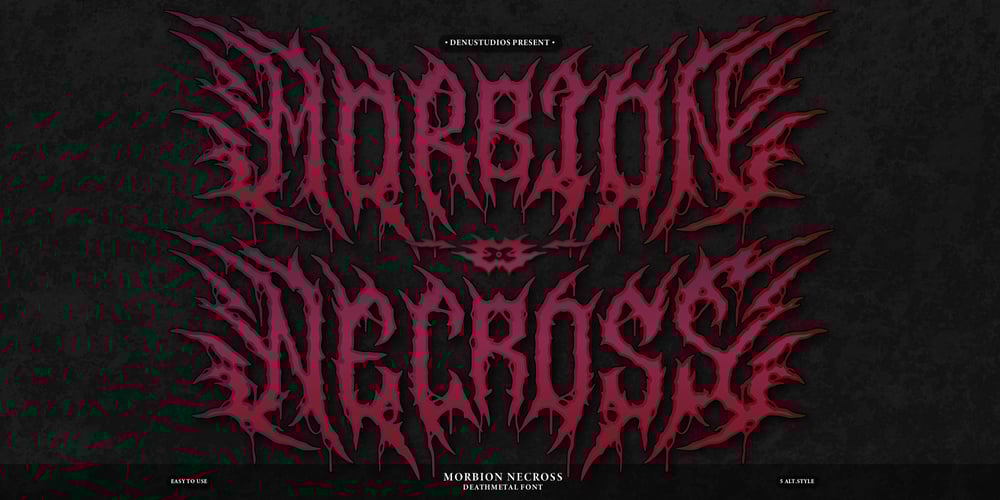
Morbion Necross
Morbion Necross font
Morbion Necross Font Family was designed by Dede Nugraha and published by Denustudio. Morbion Necross contains 1 styles and family package options. Morbion Necross | Death Metal Font, from Denustudios, suitable for any projects such as: logos, branding projects, homeware designs, product packaging, mugs, quotes, posters, shopping bags, t-shirts, book covers, name card, invitation cards, greeting cards, label, photography, watermark, special events, and all your other lovely projects that need a Death Metal Font taste.===========================================================================What’s Included : Regular and Italic Web Font Standard glyphs Alternate and Ligature Works on PC & Mac Simple installations Accessible in the Adobe Illustrator, Adobe Photoshop, Adobe InDesign, even work on Microsoft Word and Other Software. PUA Encoded Characters – Fully accessible without additional design software. Fonts include multilingual support Hope you enjoy with our font!